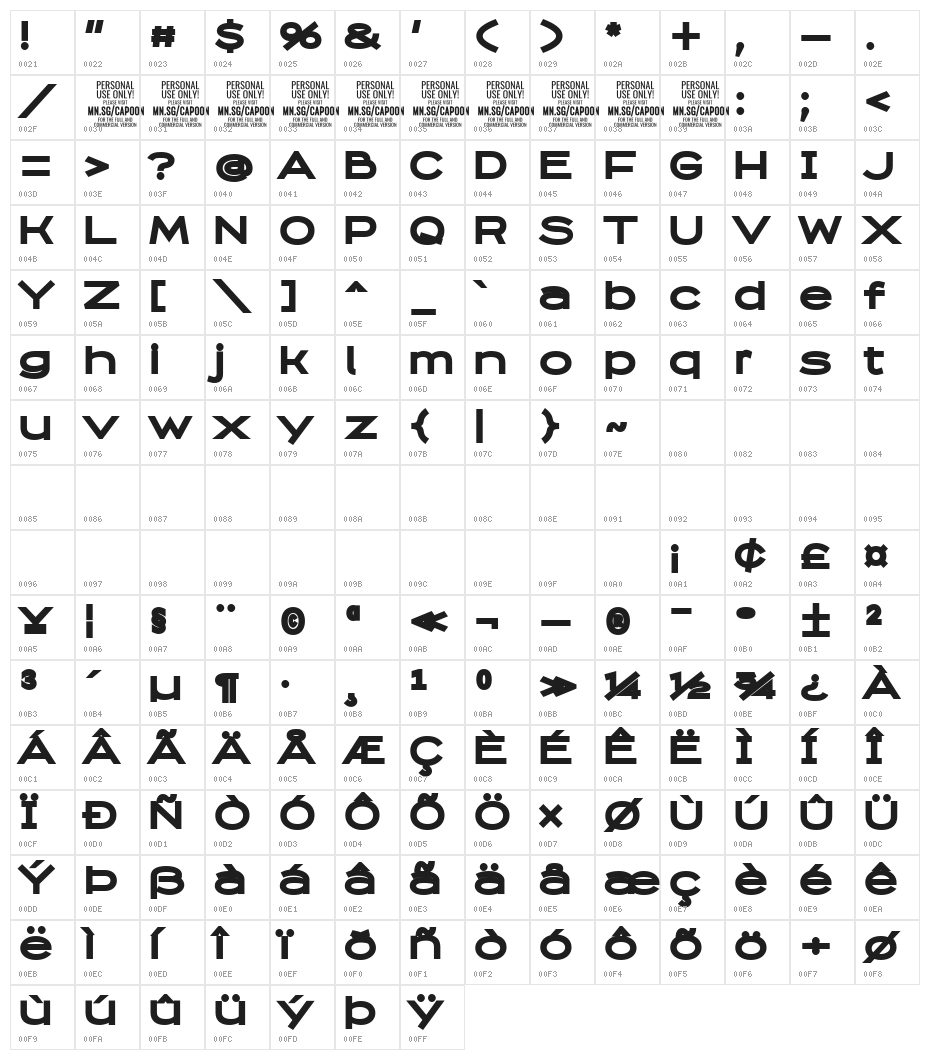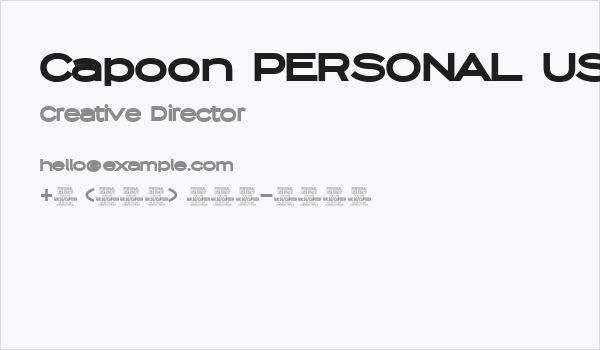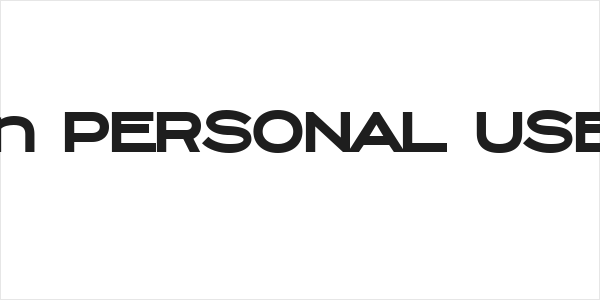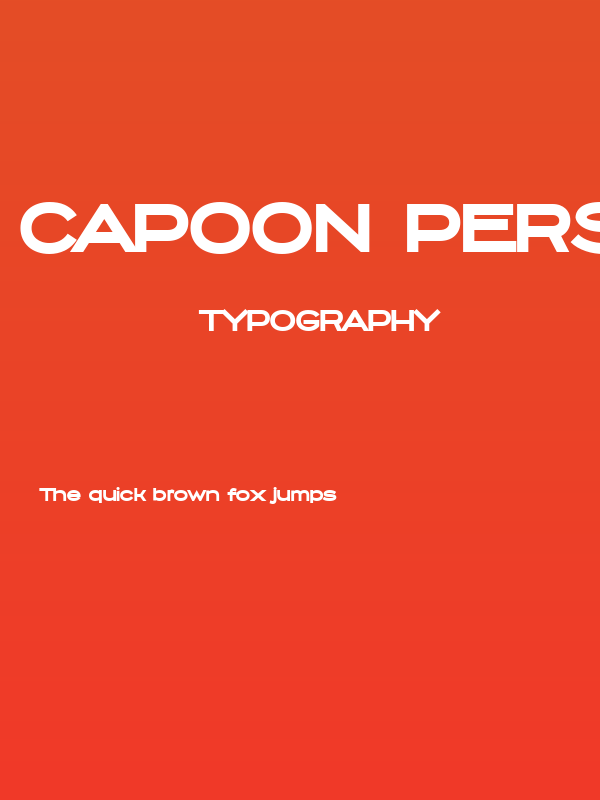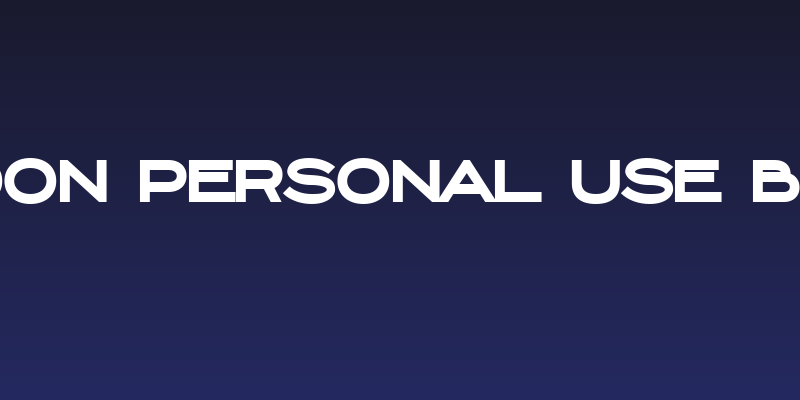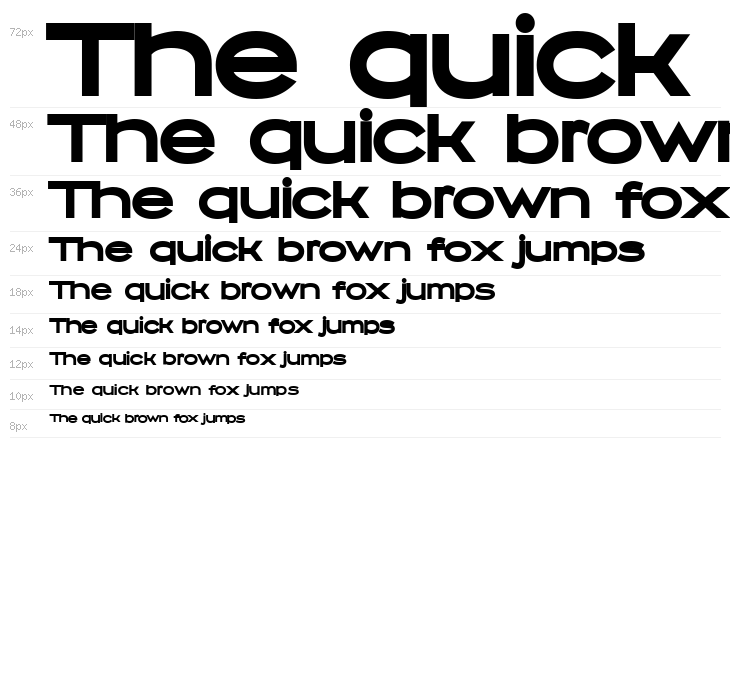
Capoon PERSONAL USE Black Font
Capoon PERSONAL USE Black Description
This font features a bold and geometric design with a modern aesthetic. The characters are constructed with thick, uniform strokes that create a strong visual impact. The uppercase letters exhibit a distinct angularity, while the lowercase letters maintain a consistent roundness, providing a harmonious balance. The numerals and special characters follow the same bold and structured style, ensuring uniformity across all glyphs. This font's design is both striking and versatile, making it suitable for a variety of creative applications.
| Proposed Projects | Ideal for branding, posters, headlines, and digital media where a strong visual presence is desired. |